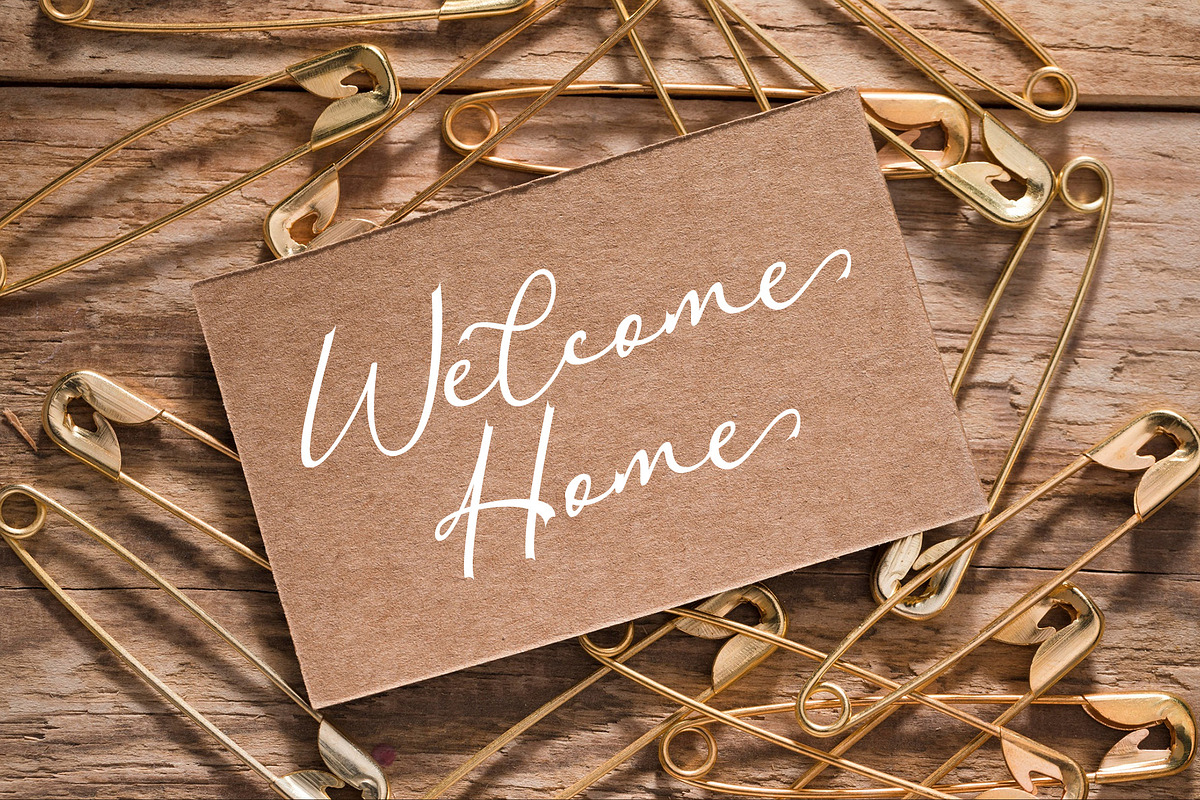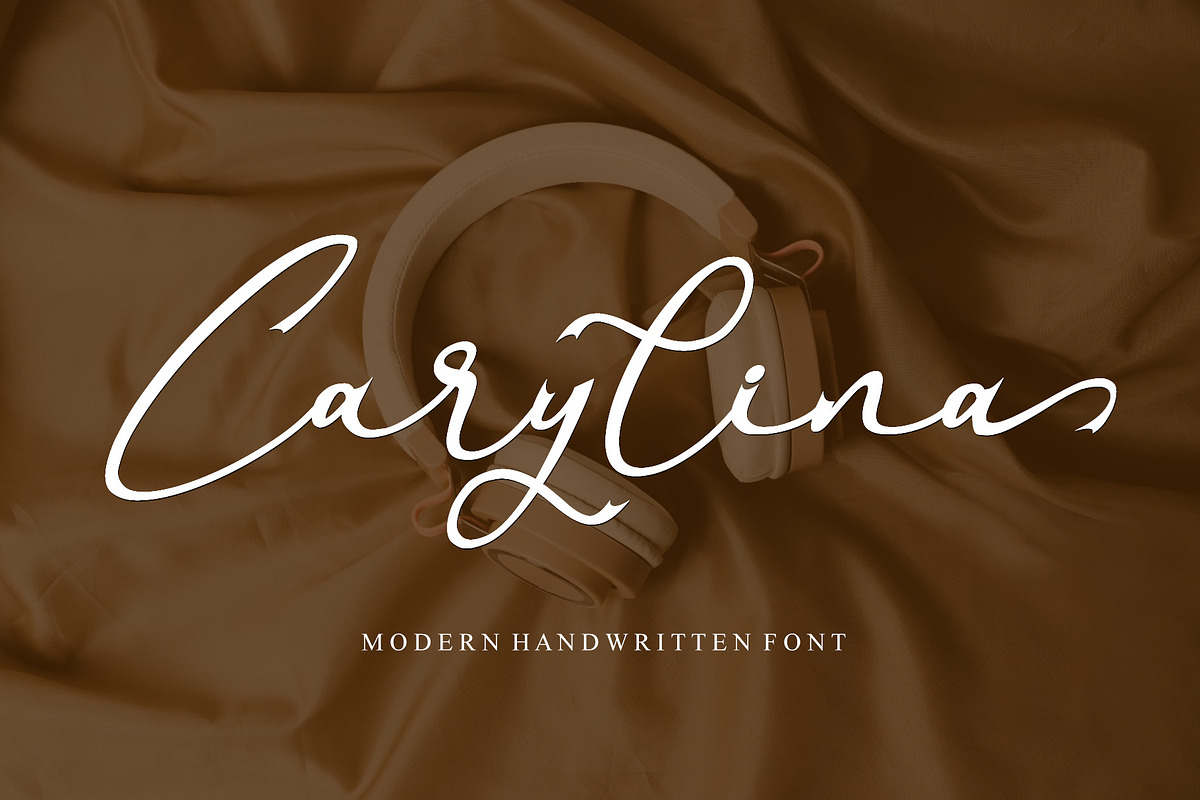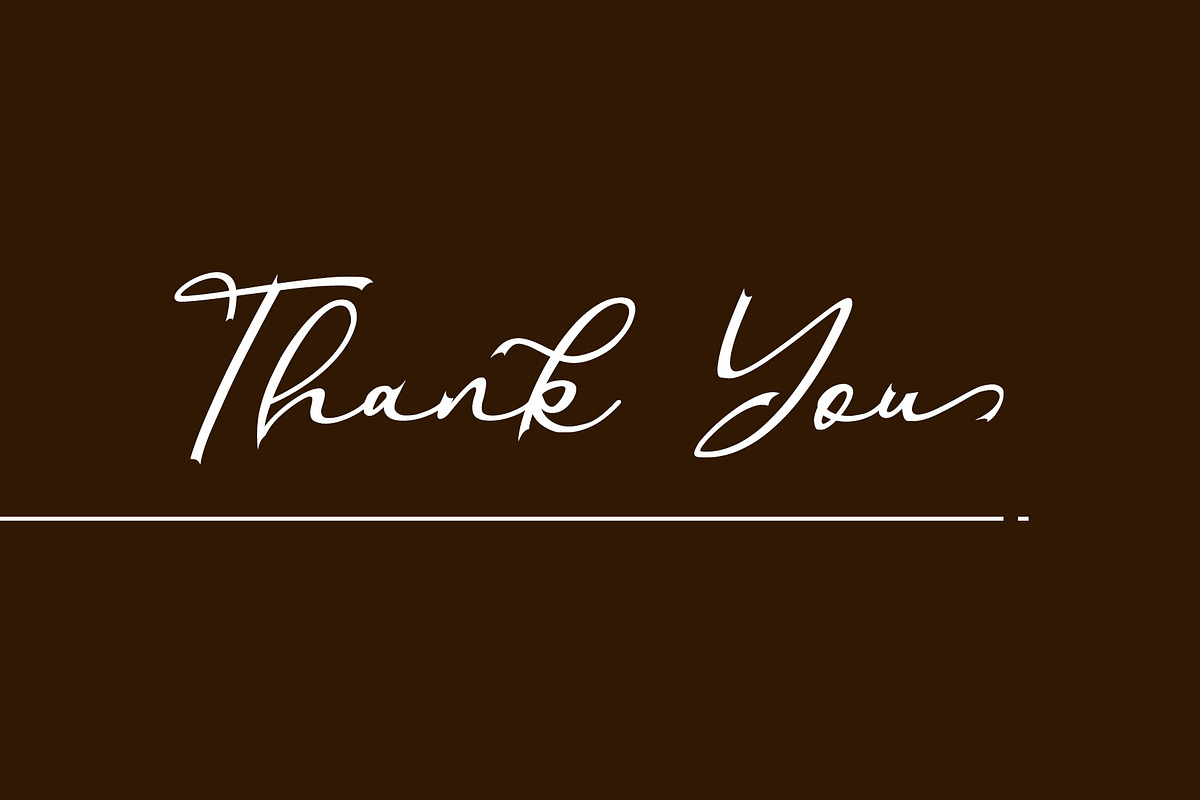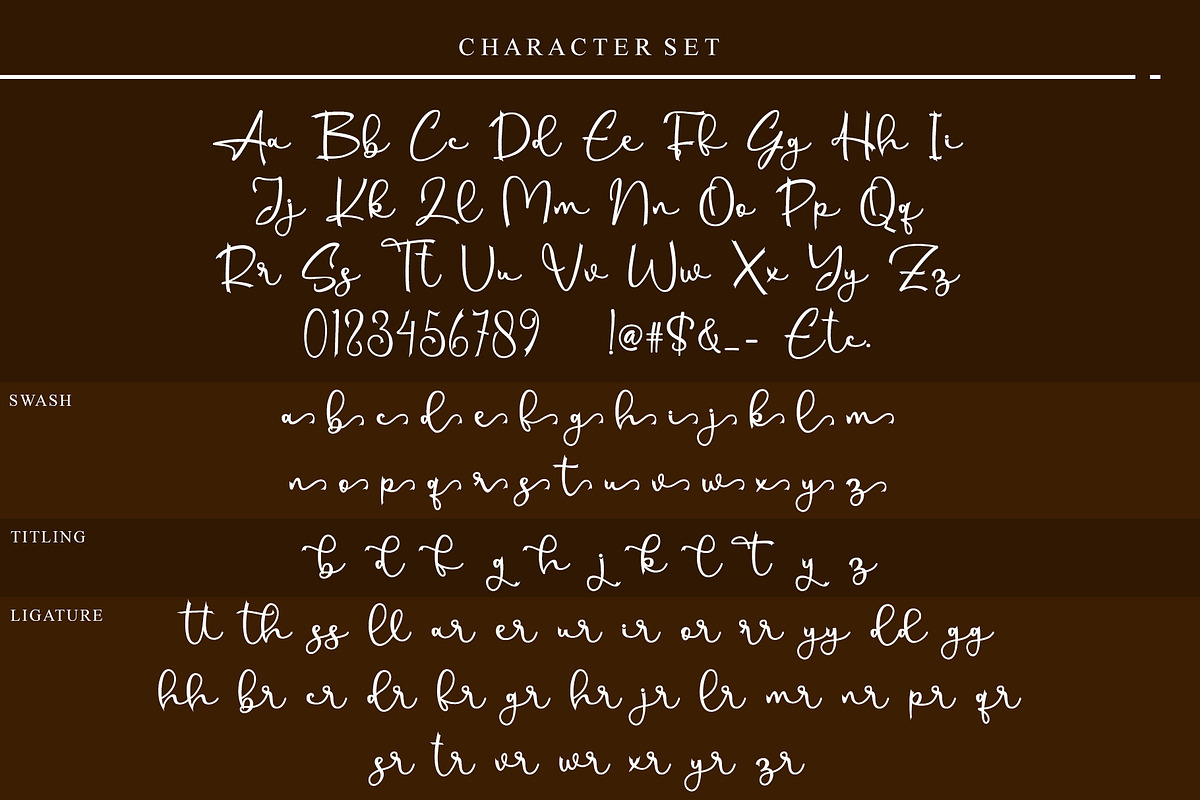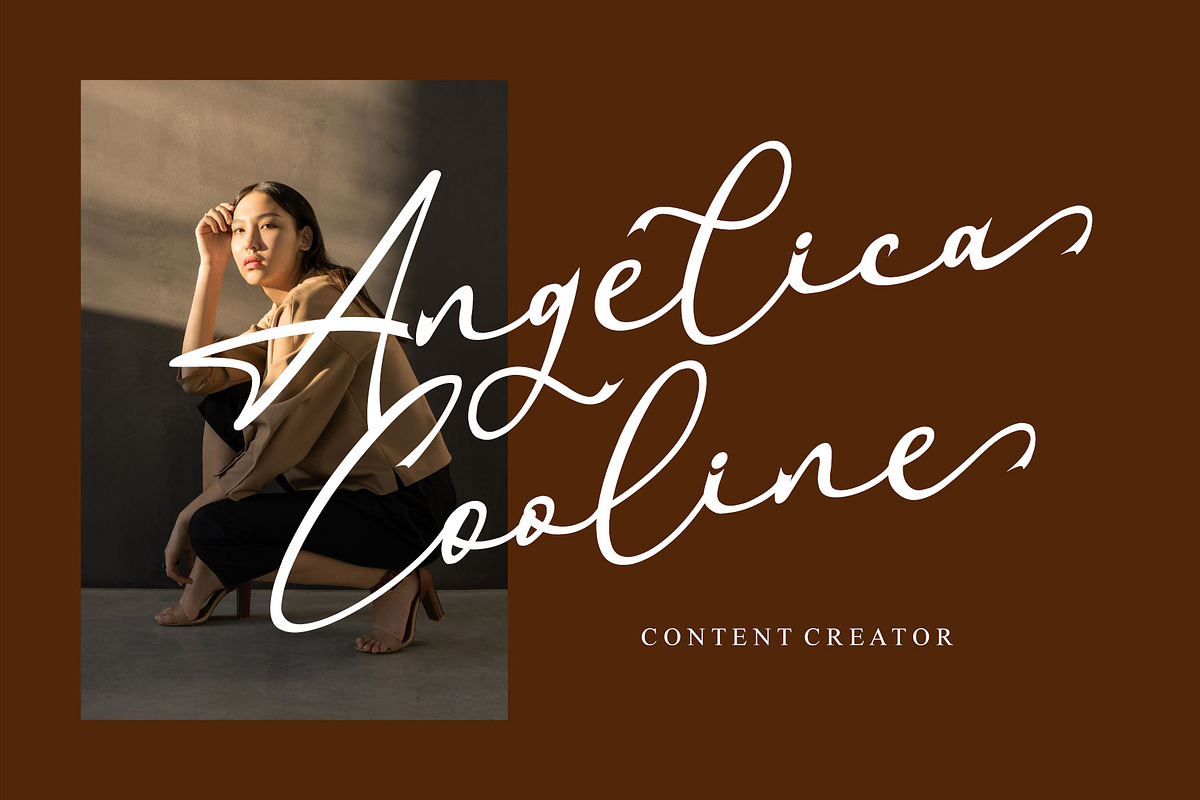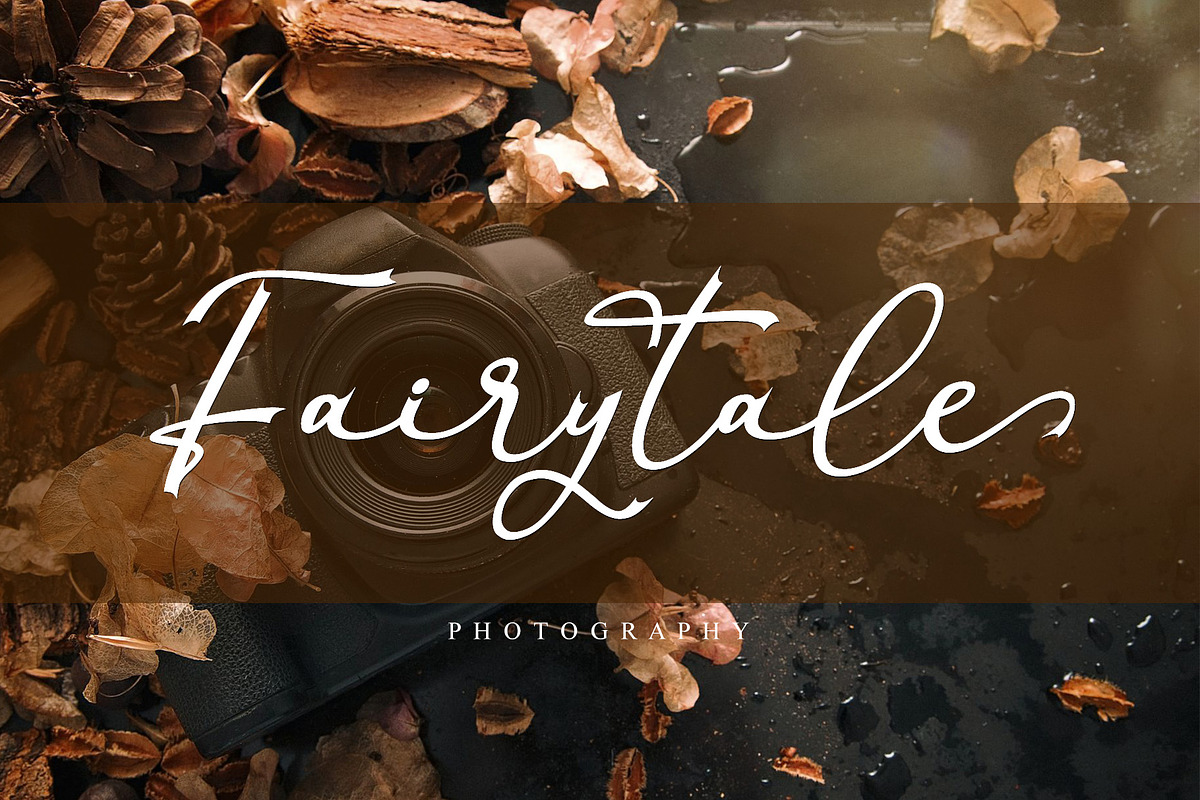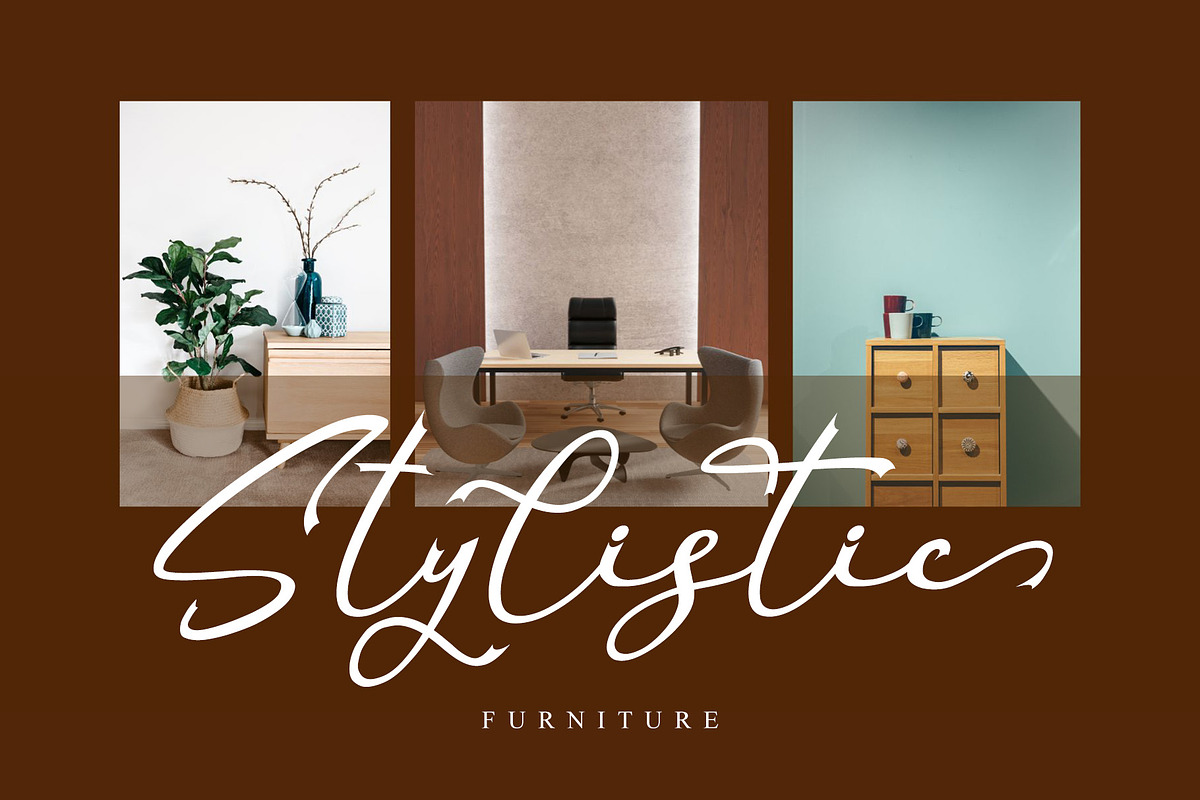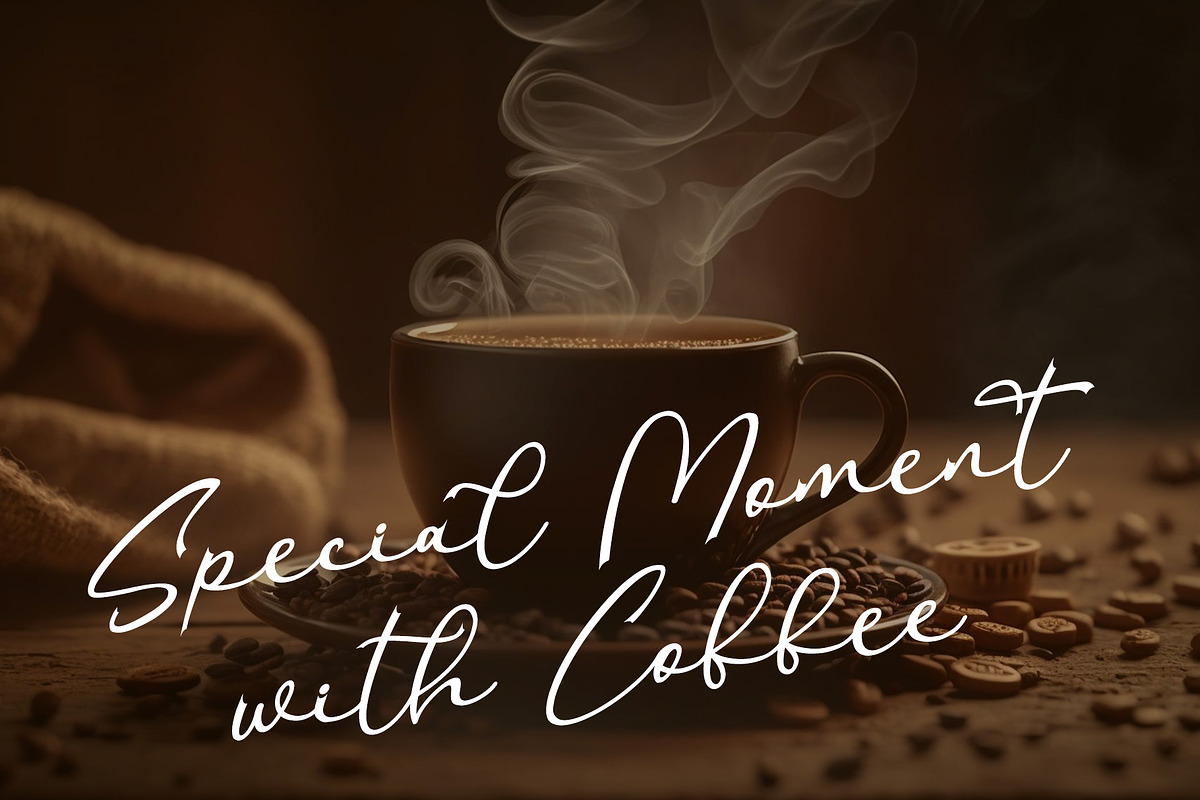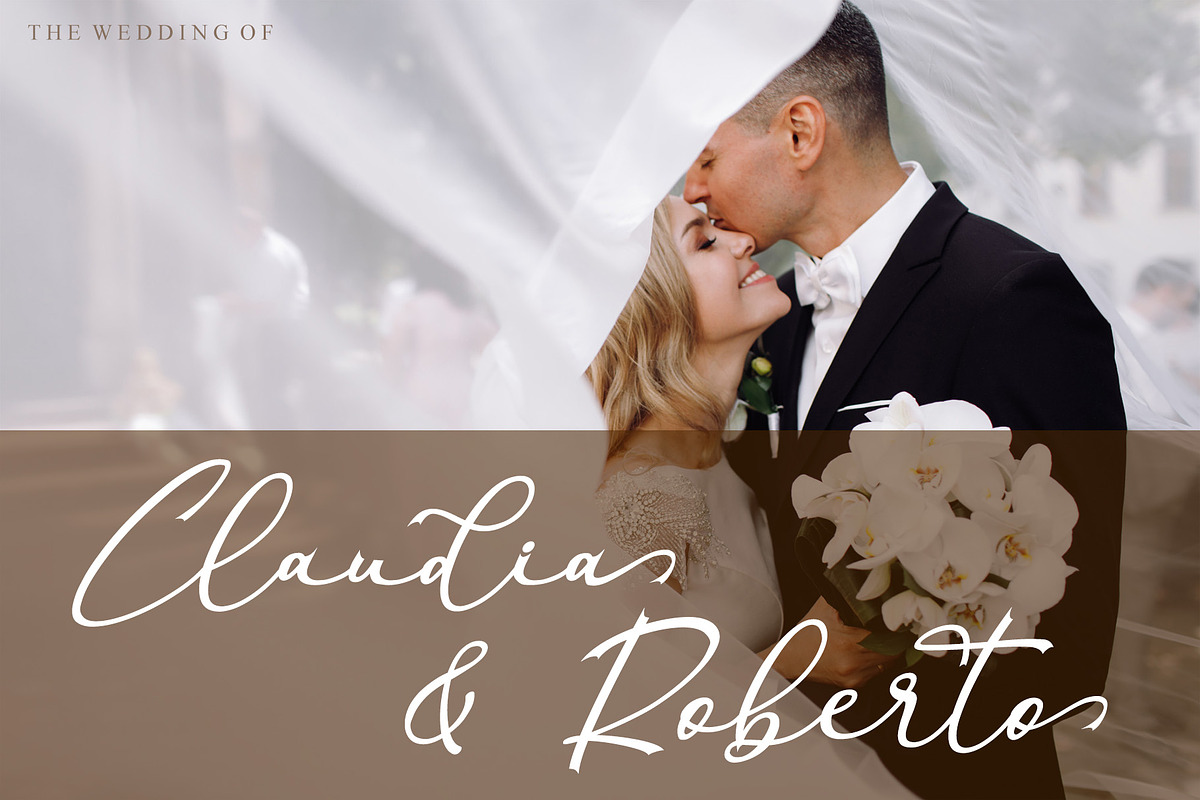
Carylina
Immerse yourself in the artisanal charm of Carylina, an exquisitely designed handwritten font. Guaranteed to embellish any creative project, Carylina is the ideal typography solution for crafting captivating logos, romantic wedding invitations, and beyond. Its refined strokes and distinct character make it a vital addition to any design toolkit. Unleash your creativity and let Caryline elevate your design aesthetics to a whole new level.